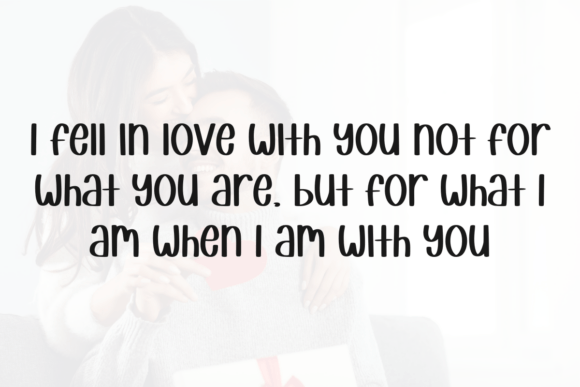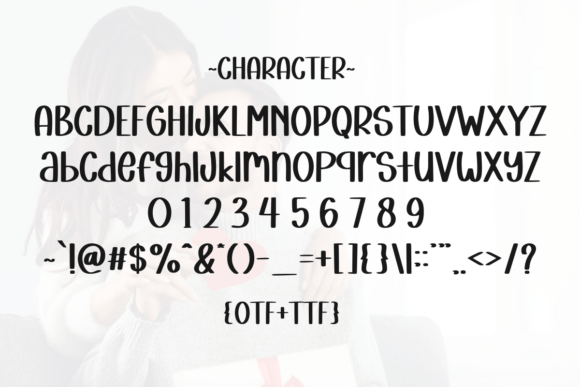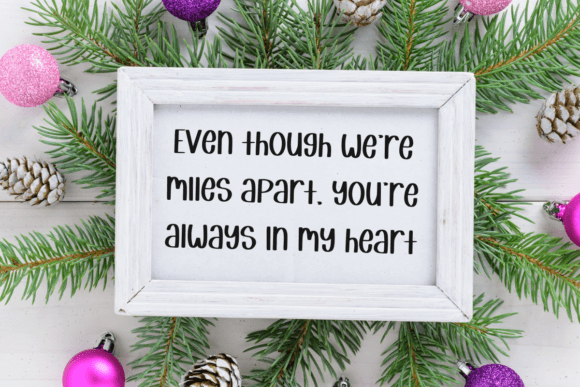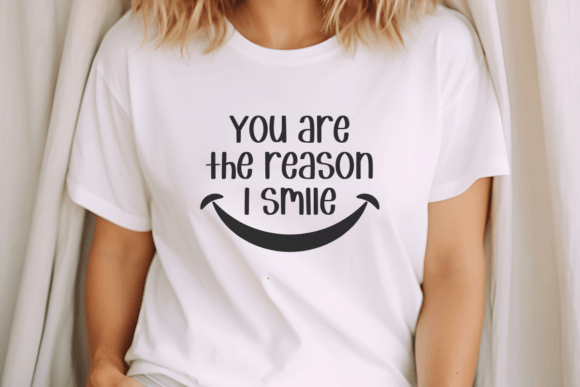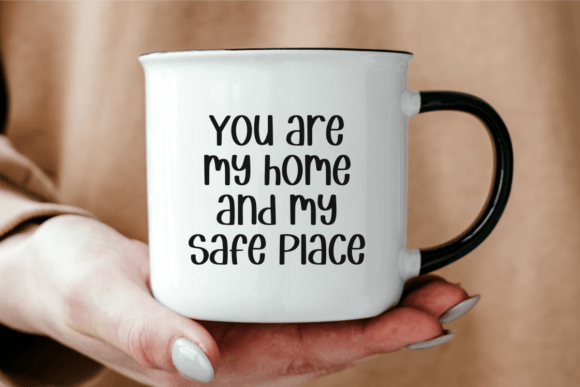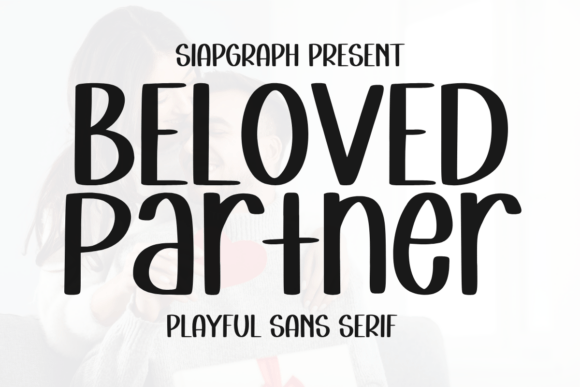
Introducing Beloved Partner Font: The Ultimate Addition to Your Font Library
Are you a designer, crafter, or creative enthusiast looking for a font that can add a touch of playfulness and charm to your projects? Look no further than the Beloved Partner Font, a fun and playful sans-serif font that’s perfect for a wide range of creative endeavors.
What Makes Beloved Partner Font So Special?
Beloved Partner Font is a unique and eye-catching font that’s designed to bring a lively and whimsical feel to your projects. Its natural strokes and touches give it a distinctive character that’s both cute and charming. Whether you’re working on a journal, KDP project, notebook, memo, planner, or teaching material, this font is sure to make your creation stand out.
Perfect for a Wide Range of Creative Projects
One of the best things about Beloved Partner Font is its versatility. It’s a font that can be used for a wide range of creative projects, including:
• Journals and notebooks: Add a personal touch to your journal or notebook with this fun and playful font.
• KDP projects: Create eye-catching book covers, titles, and headings with Beloved Partner Font.
• Planners and memos: Keep your planning and note-taking organized and stylish with this charming font.
• Teaching materials: Make learning fun and engaging with Beloved Partner Font’s playful and lively style.
• Cricut designs and silhouettes: Cut out custom shapes and designs with this font’s precise and clean lines.
• Sublimation projects: Create vibrant and colorful designs for keychains, women’s clothing, and other products.
Why You’ll Love Beloved Partner Font
So, what makes Beloved Partner Font so lovable? Here are just a few reasons why you’ll want to add it to your font library:
• Unique character: Beloved Partner Font has a distinctive and charming style that’s sure to set your projects apart.
• Playful and lively: This font’s natural strokes and touches give it a fun and whimsical feel that’s perfect for creative projects.
• Versatile: Use Beloved Partner Font for a wide range of projects, from journals and planners to teaching materials and sublimation projects.
• Easy to read: Despite its playful style, Beloved Partner Font is clear and easy to read, making it perfect for body text and headings.
How to Use Beloved Partner Font in Your Projects
In conclusion, Beloved Partner Font is a fun and playful sans-serif font that’s perfect for designers, crafters, and creative enthusiasts. Its unique character, playful style, and versatility make it a valuable addition to any font library. Whether you’re working on a journal, KDP project, planner, or teaching material, Beloved Partner Font is sure to bring a touch of charm and whimsy to your creation. So why wait? Add Beloved Partner Font to your font library today and start creating!